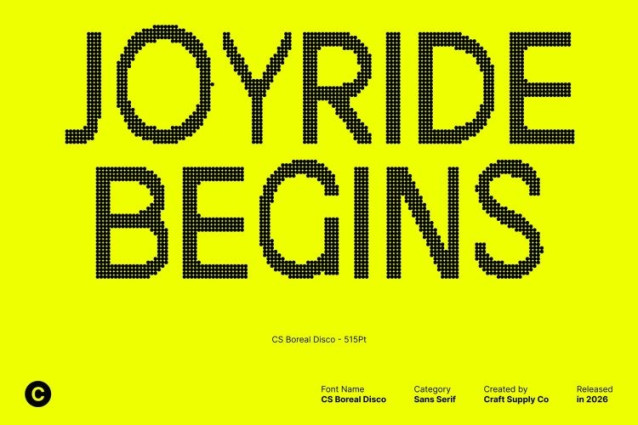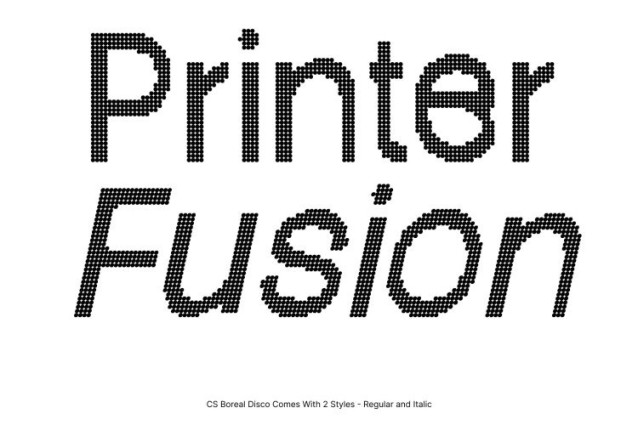
CS Boreal Disco Font
CS Boreal Disco Font This is a modern sans serif font that blends clean construction with quirky, distinctive shapes and a lively disco-inspired spirit. Designed to feel fresh, current, and expressive, it delivers a contemporary look that stands out while remaining clear and professional. The added disco nuance brings a subtle sense of rhythm, light, and movement to the typography.
Quirky Details with Polished Structure
Built on a solid modern foundation, this font features playful details that give each letter a unique personality. These carefully crafted quirks soften the structure and prevent the design from feeling rigid or generic. The result is a font that feels balanced precise yet relaxed, professional yet expressive.
Fresh, Approachable, and Energetic
This font communicates modern confidence with an approachable tone. Its fresh character feels friendly and creative, enhanced by a subtle festive energy that evokes the sparkle of disco lights and contemporary nightlife. This makes the font ideal for designs that aim to feel innovative, stylish, and engaging.
Perfect for Branding, Posters, and Digital Design
Highly versatile, this font works beautifully in branding, logos, posters, and digital visuals. Whether used for bold headlines or supporting text, it delivers a clean and expressive presence across print and screen adding modern charm with a touch of celebratory flair.